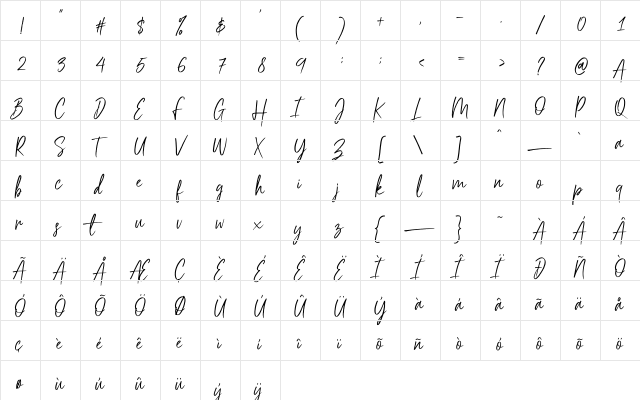
Scriptyca Regular
Design Context for Scriptyca Typeface
Scriptyca brings a calligraphic fluidity to the page — its connecting strokes and expressive curves give it an unmistakably human quality.
Font Pairing: Combine Scriptyca with a simple geometric sans for maximum contrast — the tension between flowing curves and clean structure is a classic typographic pairing.
Pro Tip: Use Scriptyca for short runs of text — names, titles, or taglines. Extended body copy in script faces tires the eye quickly.